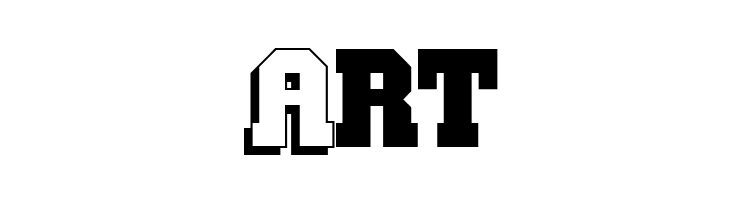
A bold, blocky font with a strong, geometric design.
设计师偏爱 SeoulHangang L, KG Love Ya Like A Sister Solid, Hi. Regular, Wet Arial Black and Varsity Block D,因为其造型干净、适用范围广—— 从品牌识别到落地页、海报都能胜任。